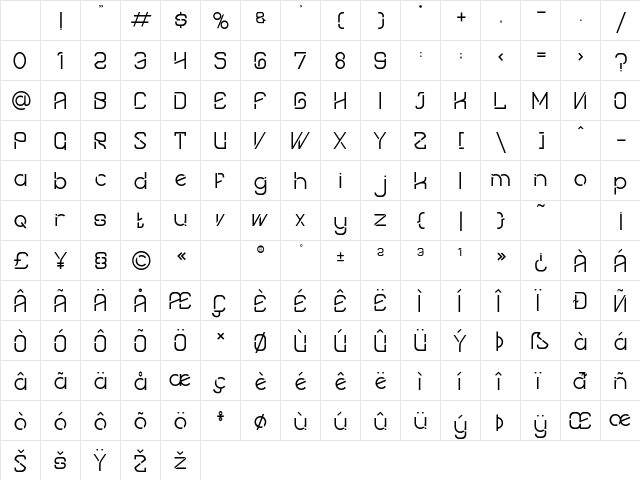
Complete Quantum Futuristic Regular glyph index. Displaying only characters natively supported by Quantum Futuristic Regular font.
Quantum Futuristic has a distinctly futuristic character, with geometric precision and clean angles that feel at home in technology, gaming, and sci-fi contexts.